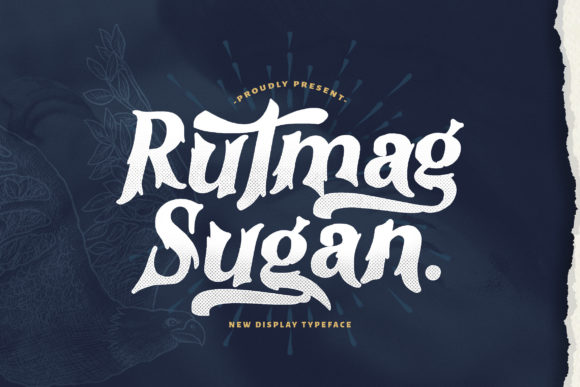
Journey into the realm of fonts and discover Rutmag Sugan, a typographic masterpiece designed to capture the essence of playful elegance. Each character in this display font is lovingly crafted with a touch of whimsy and a hint of sophistication. The result is a truly unique and eye-catching font that will add a touch of charm and personality to your creative projects.
Rutmag Sugan is not just a font; it's an adventure in visual expression. Whether you're creating invitations for a special occasion, designing eye-catching social media posts, or crafting logos for your business, this font will elevate your designs and leave a lasting impression on your audience.
With its captivating curves and enchanting details, Rutmag Sugan invites you to explore a world of limitless creativity. Dive into the font's distinct personality and let your imagination run wild. Create designs that are as unique as you are, knowing that every letter you place carries the essence of magic and delight.
Don't settle for ordinary fonts. Embrace the extraordinary with Rutmag Sugan. Step into a world where words dance, emotions flow, and the boundaries of creativity are pushed to new heights. Experience the joy of expressing yourself with a font that truly understands the language of the heart.